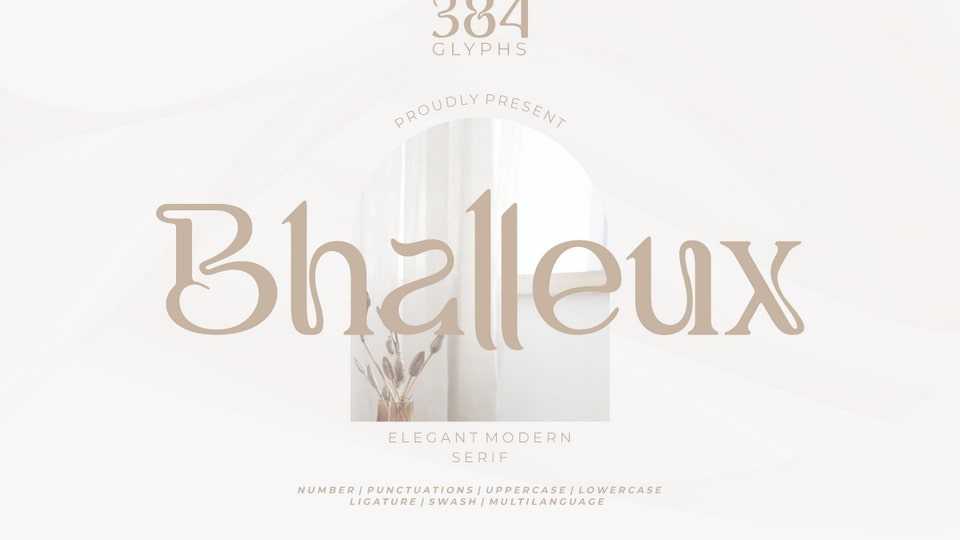
Download Bhalleux font, an elegant modern serif typeface. Letters with a combination of curved shapes that look unique and not boring, have a variety of ligatures and swashes.